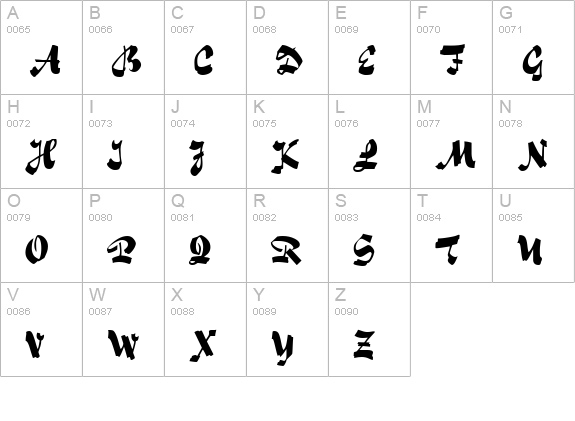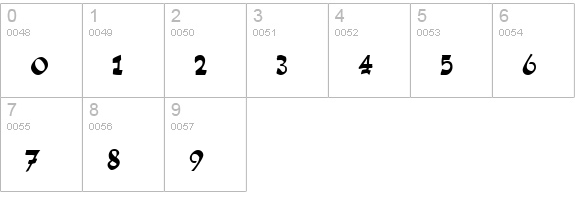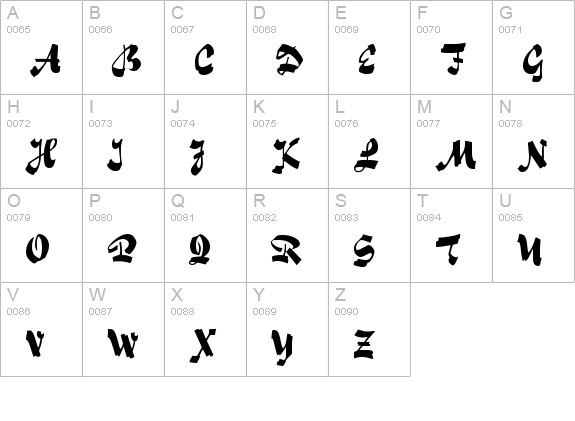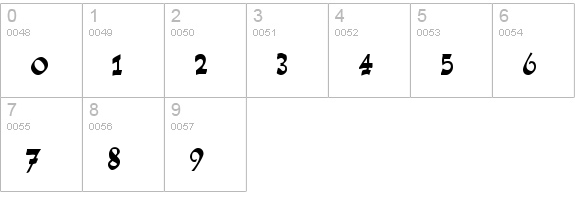
Foxscript Regular Font Details
Foxscript Regular is the standard, neutral variant in the Foxscript typeface family \xE2\x80\x94 well suited to general body text, paragraphs, and standard typographic work.
Foxscript Regular is a charming and elegant font that exudes a playful and modern aesthetic. Its smooth lines and flowing curves give off a friendly and inviting vibe, making it perfect for a wide range of design projects. Whether you're creating invitations, branding materials, or social media graphics, Foxscript Regular is sure to add a touch of sophistication and style. The best part? Foxscript Regular is available for free download at FontsMarket.com. This means you can easily access this beautiful font and incorporate it into your designs without breaking the bank. Don't miss out on the opportunity to elevate your projects with the timeless appeal of Foxscript Regular. Download it today and let your creativity shine!